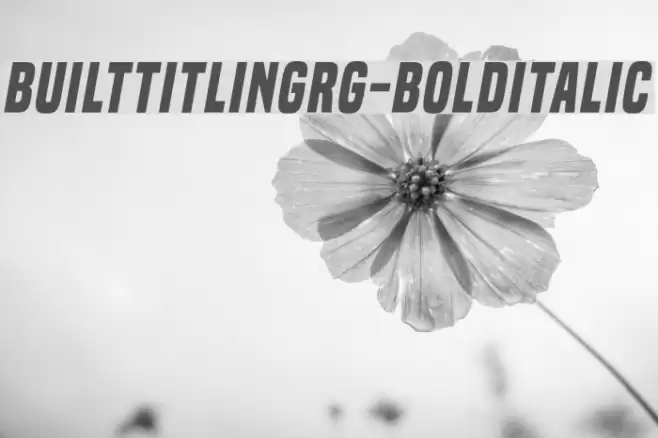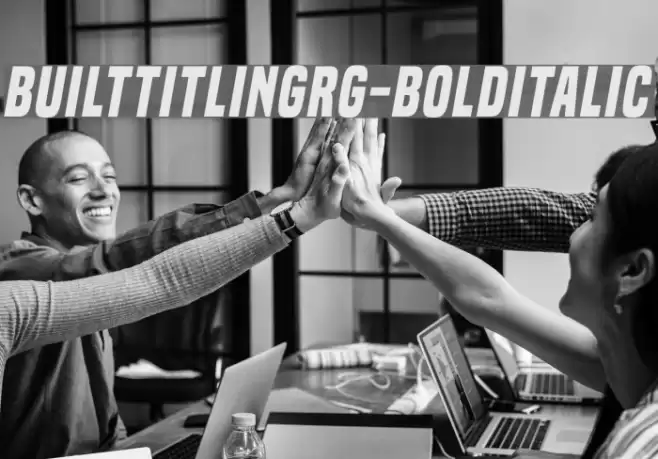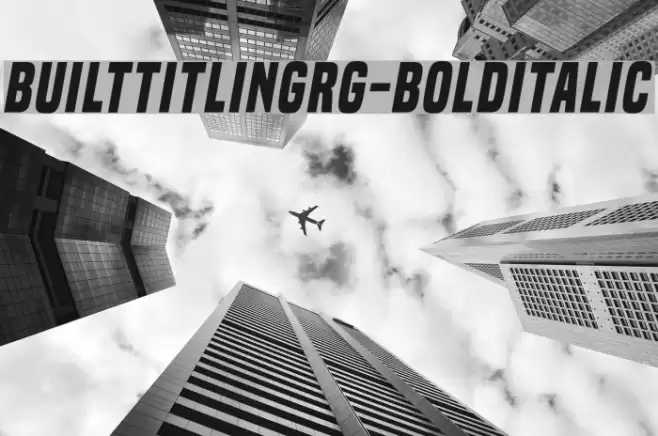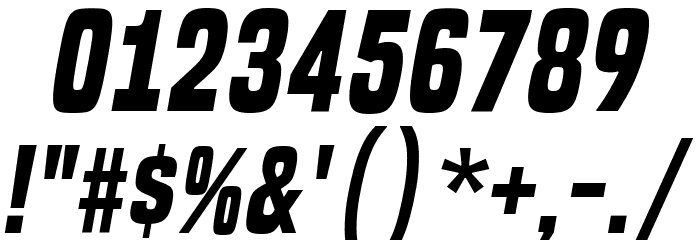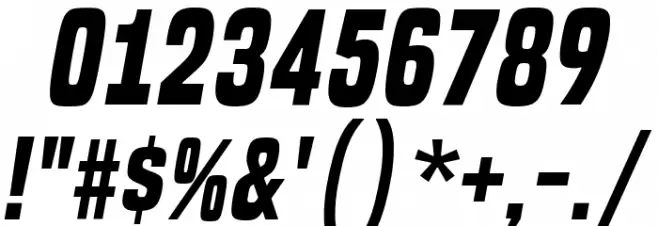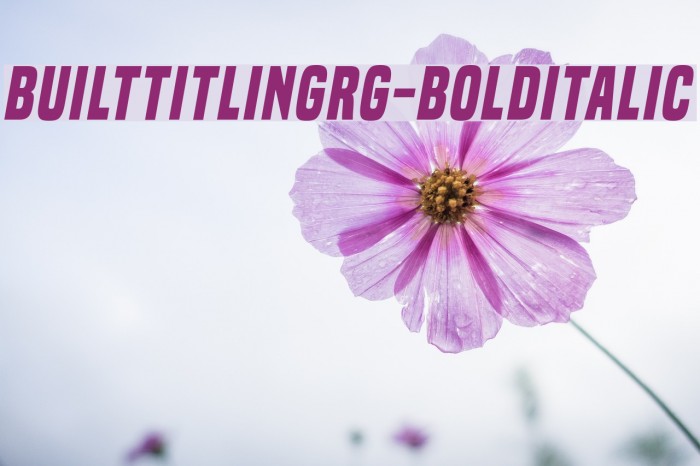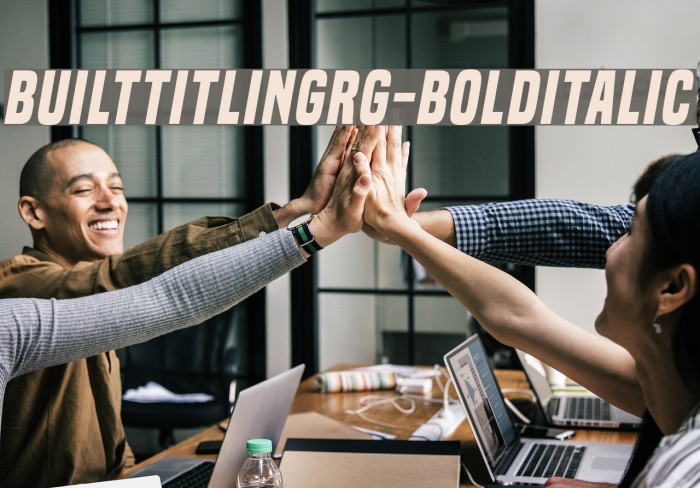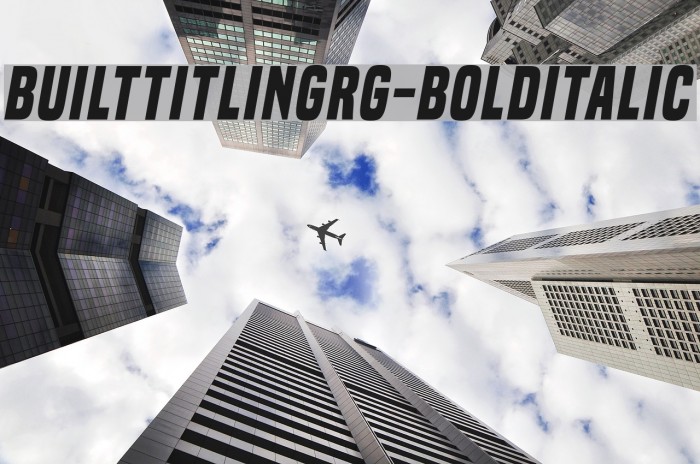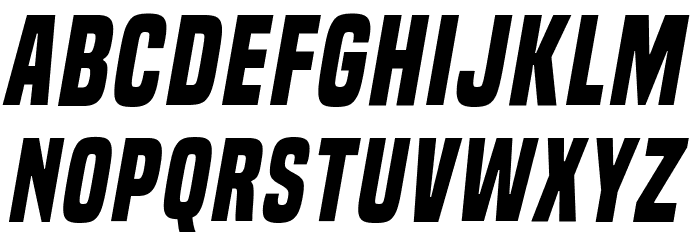
BuiltTitlingRg-BoldItalic Font
BuiltTitlingRg-BoldItalic Description
This font exhibits a bold and italicized style, characterized by its strong, impactful presence. The letters are slanted, adding a dynamic and forward-moving feel. The strokes are thick and consistent, providing a sense of stability and confidence. The uppercase and lowercase letters maintain a uniform appearance, with clear, sharp edges and a modern aesthetic. The numerals are equally bold, ensuring readability and emphasis. Special characters are designed to match the overall boldness, making them stand out effectively. This font is well-suited for making a statement, with its bold and italic features enhancing its visibility and appeal.
A bold, italicized font with a strong, modern presence from Uncategorized fonts.
- Proposed Projects: Ideal for headlines, posters, branding, and advertising where a strong impact is needed.